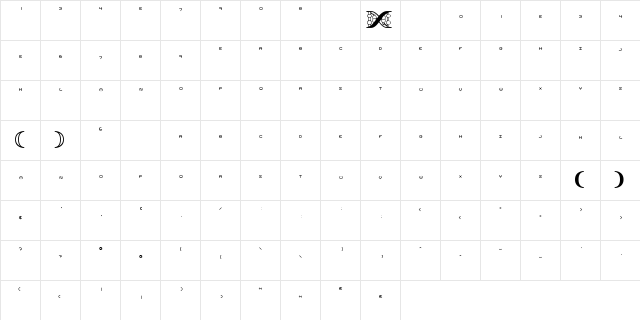
Code Of Life BRK Regular
Design Context for Code Of Life BRK Typeface
Code Of Life BRK brings the precise, column-aligned rhythm of monospaced typography to designs that value technical clarity and systematic order.
Well-suited to data-driven dashboards, coding tutorials, and any design that wants to reference the world of programming.
Pro Tip: Use Code Of Life BRK with slightly increased line-height for extended reading — fixed-width spacing can feel dense in longer passages without extra breathing room.